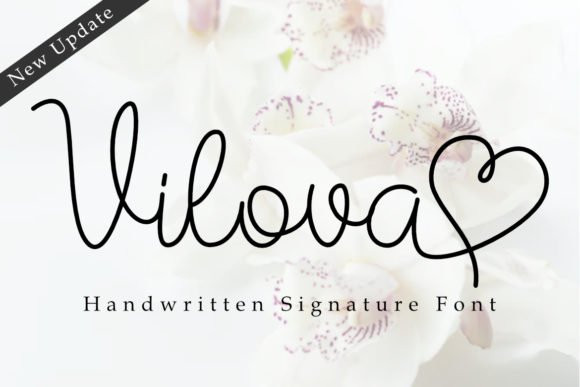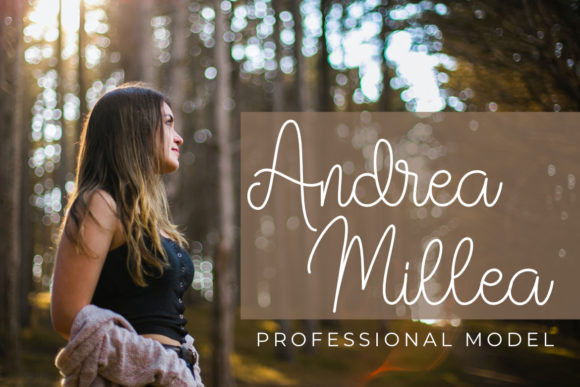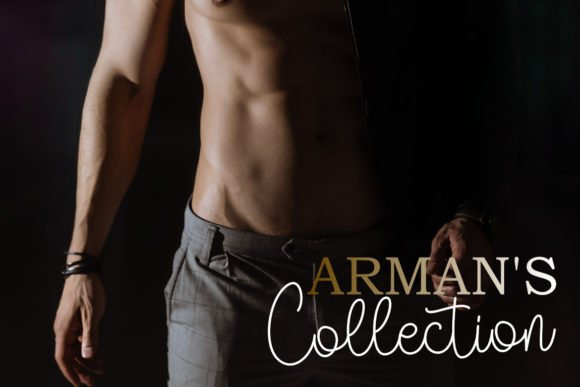
Vilova Font
Vilova is a gorgeous script font. This amazing typeface is perfect for product packaging, branding project, magazine, social media, wedding invitations, or just used to express words above the background. With lovely heart alternates, this font will make your designs look lovely.